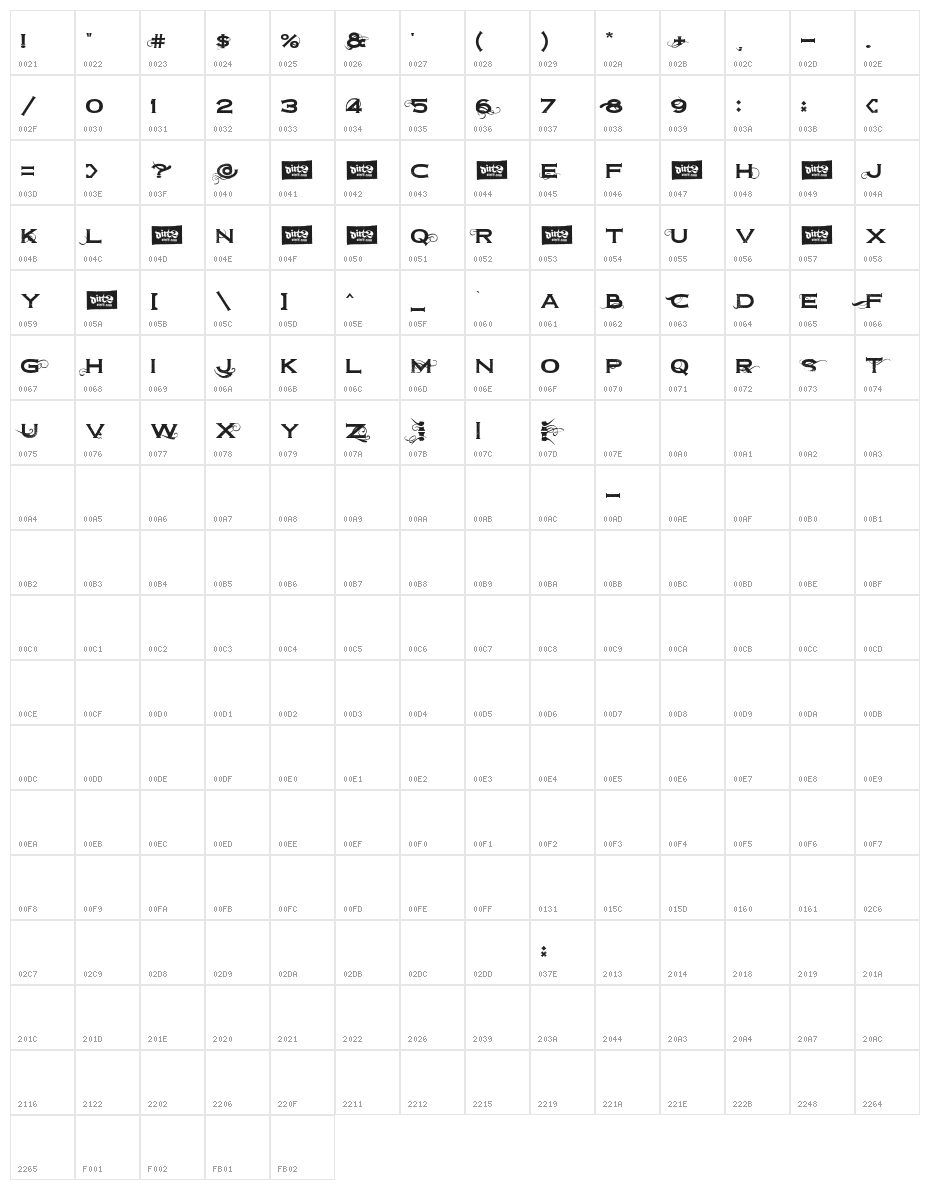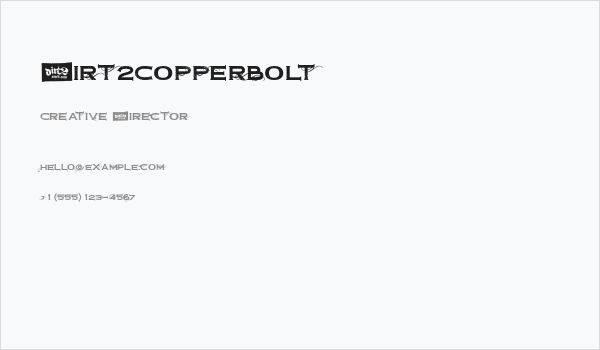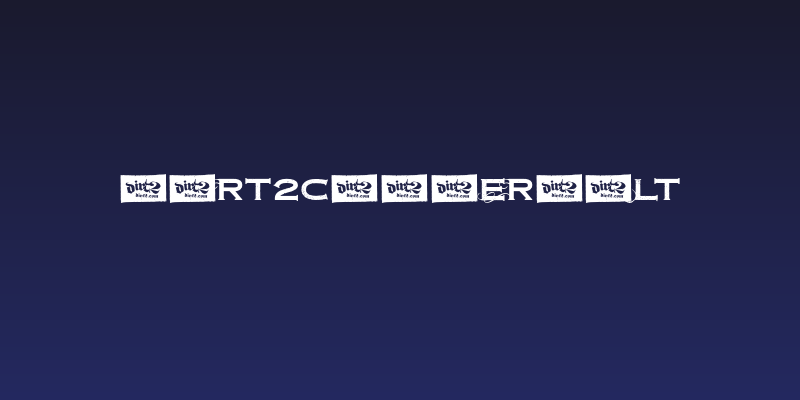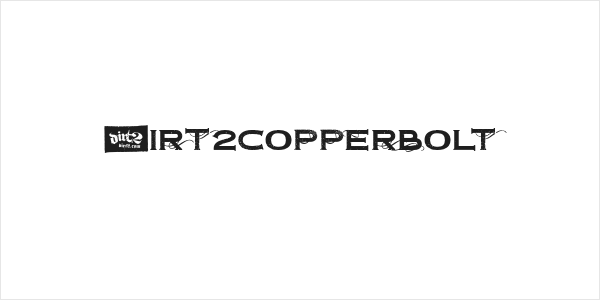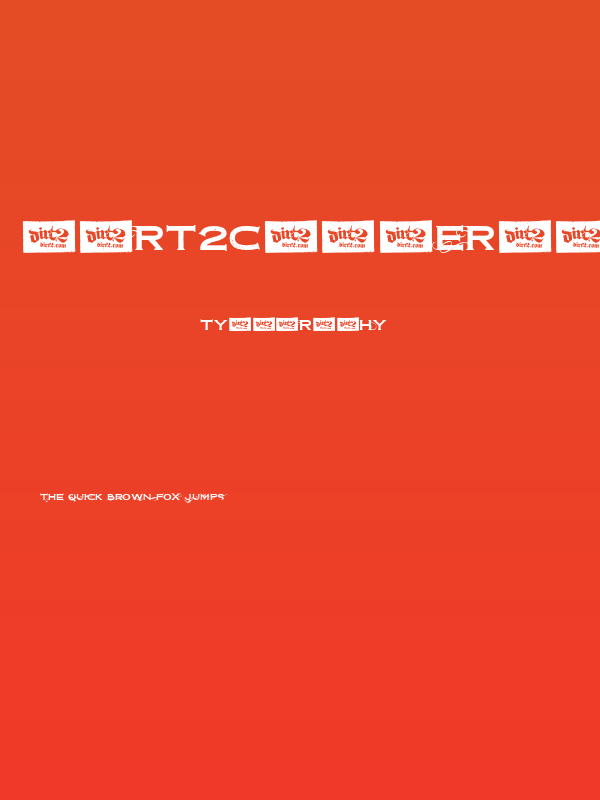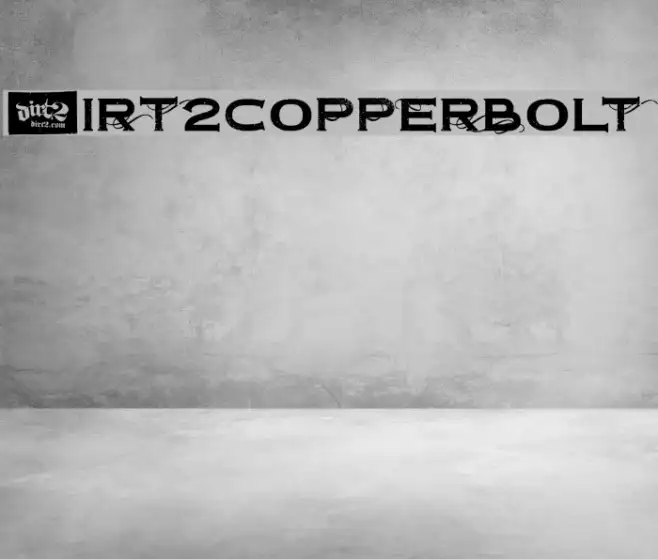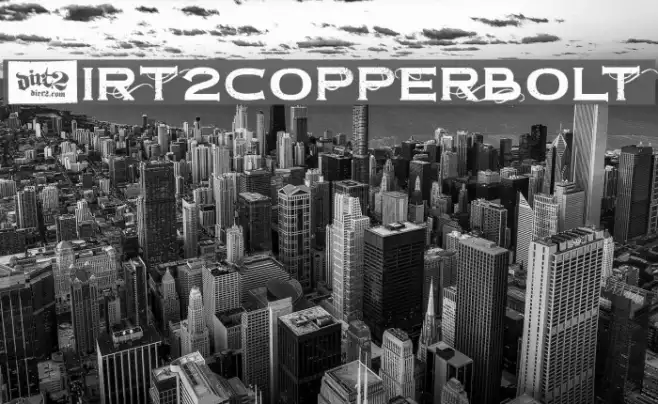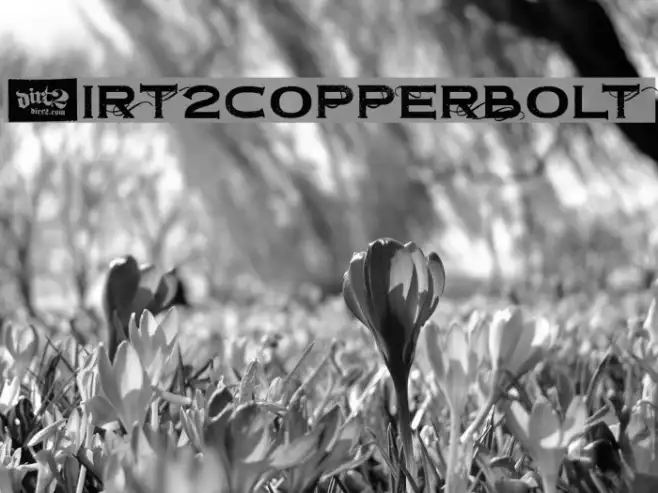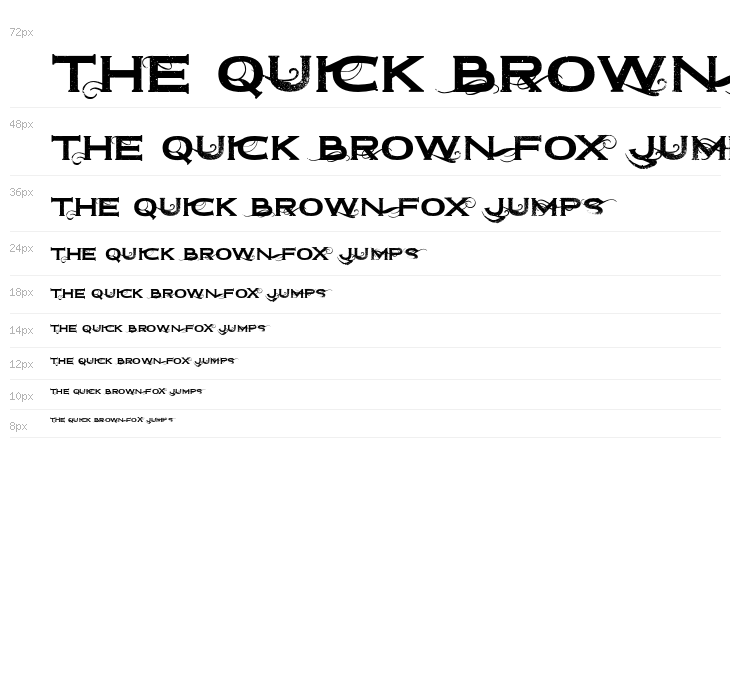
Dirt2Copperbolt Font
Dirt2Copperbolt Description
This font features a grunge and distressed style, characterized by its rough, textured appearance. Each letter is adorned with unique decorative elements, such as swirls and splatters, giving it an edgy and rebellious feel. The uppercase and lowercase letters maintain a consistent design, with varying degrees of distress and embellishment. Numbers and special characters follow the same aesthetic, ensuring a cohesive look across all text elements. The font's bold and impactful presence makes it ideal for projects that require a strong visual statement.
| Overall Style | Edgy, Grunge, Decorative |
| Proposed Projects | Ideal for music album covers, posters, urban-themed designs, and apparel branding. |